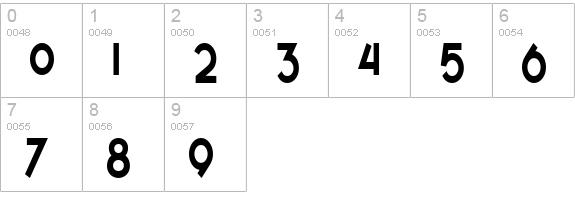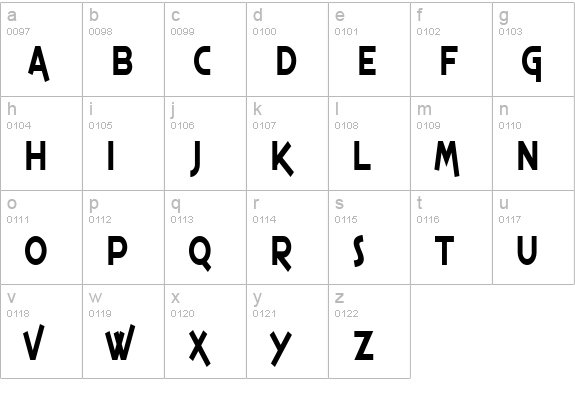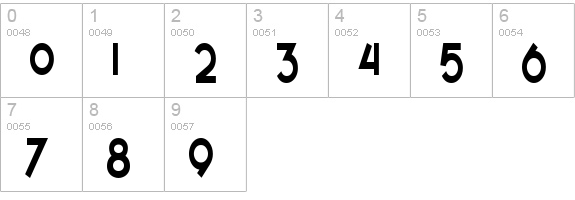
SF Espresso Shack Condensed Font Details
SF Espresso Shack Condensed is a distinctive, condensed-width variant in the SF typeface family \xE2\x80\x94 well suited to design and typography projects.
Introducing SF Espresso Shack Condensed, a modern and sleek display font that exudes sophistication and elegance. Inspired by the vibrant energy of bustling espresso shacks found in the heart of urban cities, this font encapsulates the essence of contemporary design with a touch of nostalgia. SF Espresso Shack Condensed features condensed letterforms that are bold and commanding, making it perfect for headlines, logos, and other attention-grabbing designs. Its clean lines and sharp edges give it a polished and professional look, while its subtle curves add a touch of softness and warmth. What sets SF Espresso Shack Condensed apart is that it is not only visually stunning, but also freely available to download at FontsMarket.com. This means that designers, creatives, and enthusiasts alike can enjoy the beauty and versatility of this font without any limitations. Whether you're working on a personal project or a commercial endeavor, SF Espresso Shack Condensed is here to elevate your designs and make a lasting impression. With its extensive character set, including uppercase and lowercase letters, numerals, punctuation marks, and special symbols, SF Espresso Shack Condensed offers endless possibilities for typography enthusiasts. Its versatility allows it to effortlessly adapt to various design styles, from minimalistic and contemporary to vintage and retro. So, if you're looking for a font that combines modernity, elegance, and utmost convenience, look no further than SF Espresso Shack Condensed. Download it for free at FontsMarket.com and embark on a creative journey where your designs truly stand out.